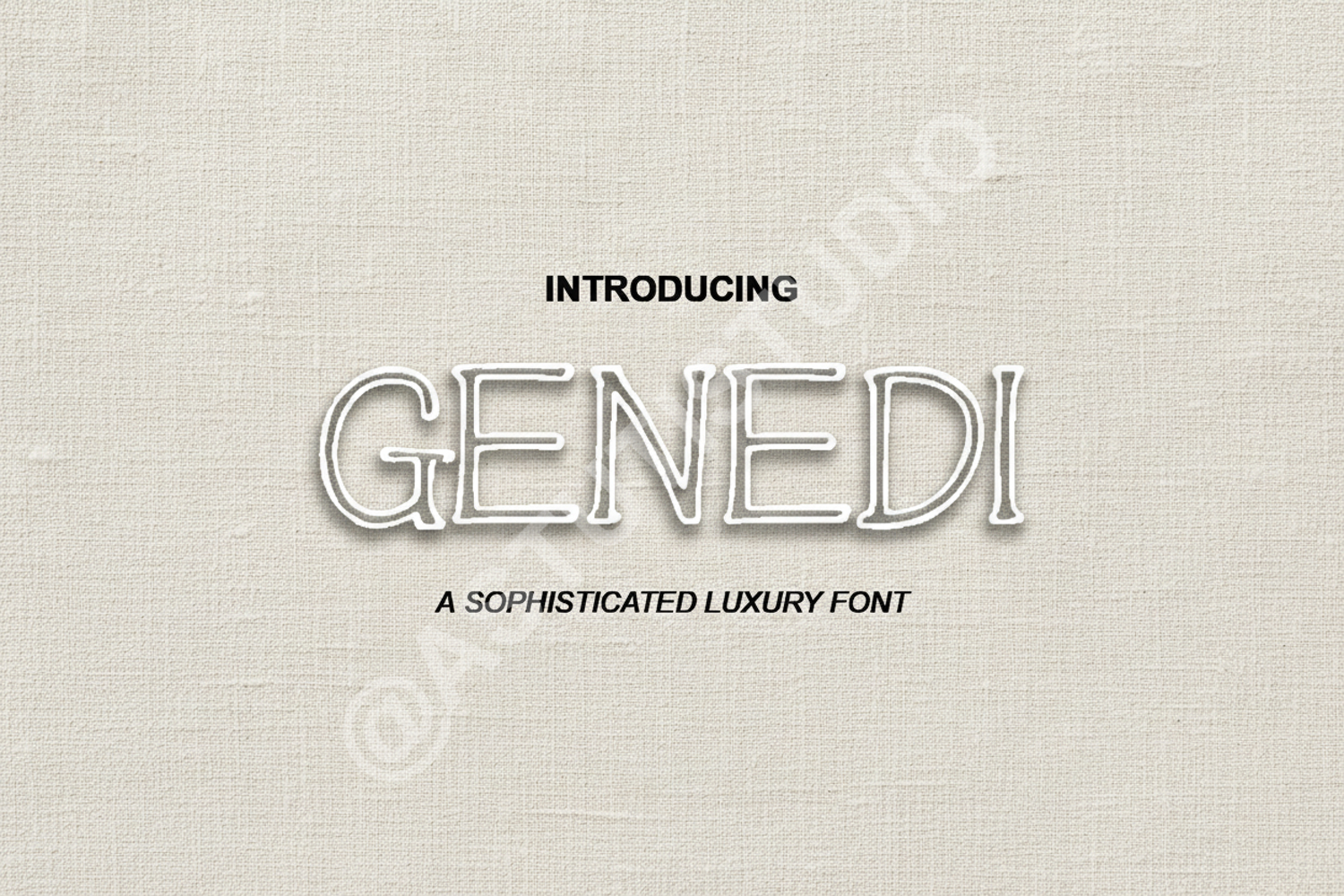
Genedi - Sophisticated Modern Serif Font
Genedi
Elevate your design projects with Genedi, a premium serif font that perfectly balances timeless elegance with a modern aesthetic. Meticulously crafted for versatility, Genedi offers clean lines and sophisticated curves that bring a professional touch to any creative endeavor. Whether you are working on a high-end fashion brand or a minimalist editorial layout, this font provides the perfect foundation for design excellence.
- Standard ligatures and alternate characters for unique styling
- Professional Branding and Identity: Create a memorable and authoritative brand presence.
- Editorial Design: Perfect for magazine headers, book covers, and sophisticated layouts.
- Wedding and Event Stationery: Add a touch of class to invitations, menus, and place cards.
- Digital Marketing: Enhance social media graphics and website typography with high-readability characters.
- Product Packaging: Ideal for luxury goods, cosmetics, and artisanal product labels.